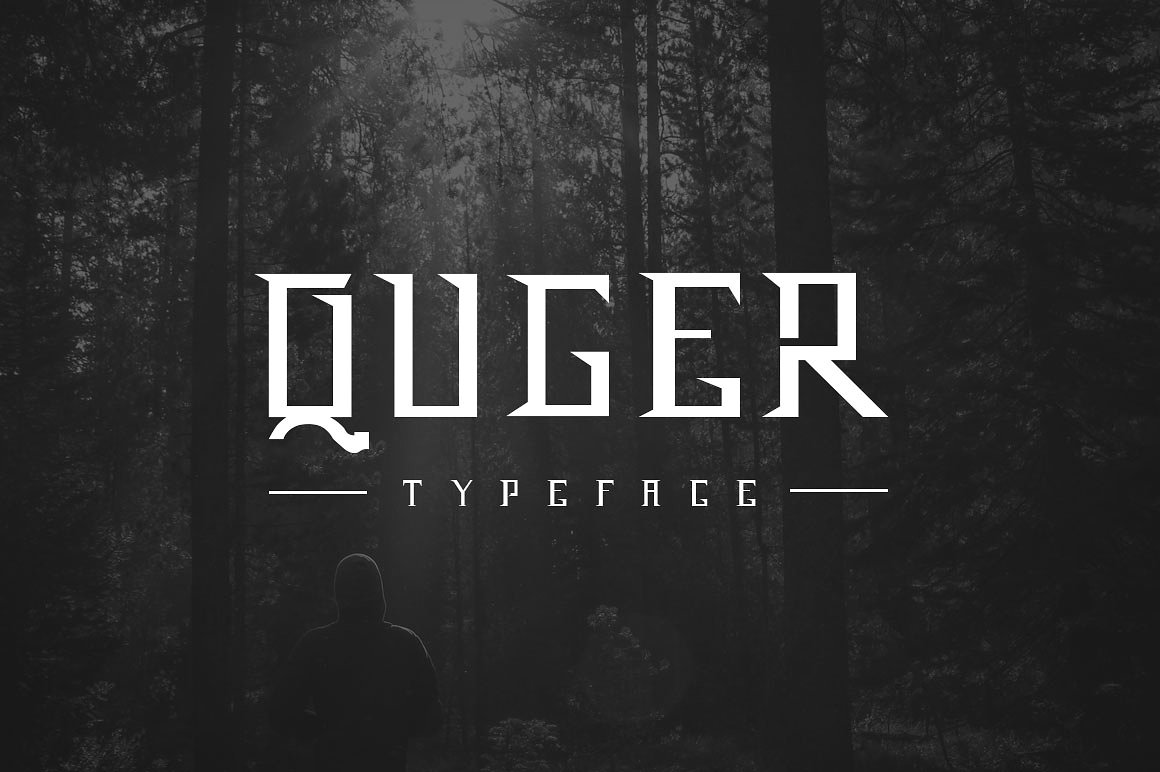
QUGER Typeface
QUGER Horror typefont l It’s made in strong on your design. Font is perfect for any horror movie, band logo, branding materials ect
| Designer Name: | RXWI |
| Classification: | Blackletter / Gothic Fonts, Display Fonts |